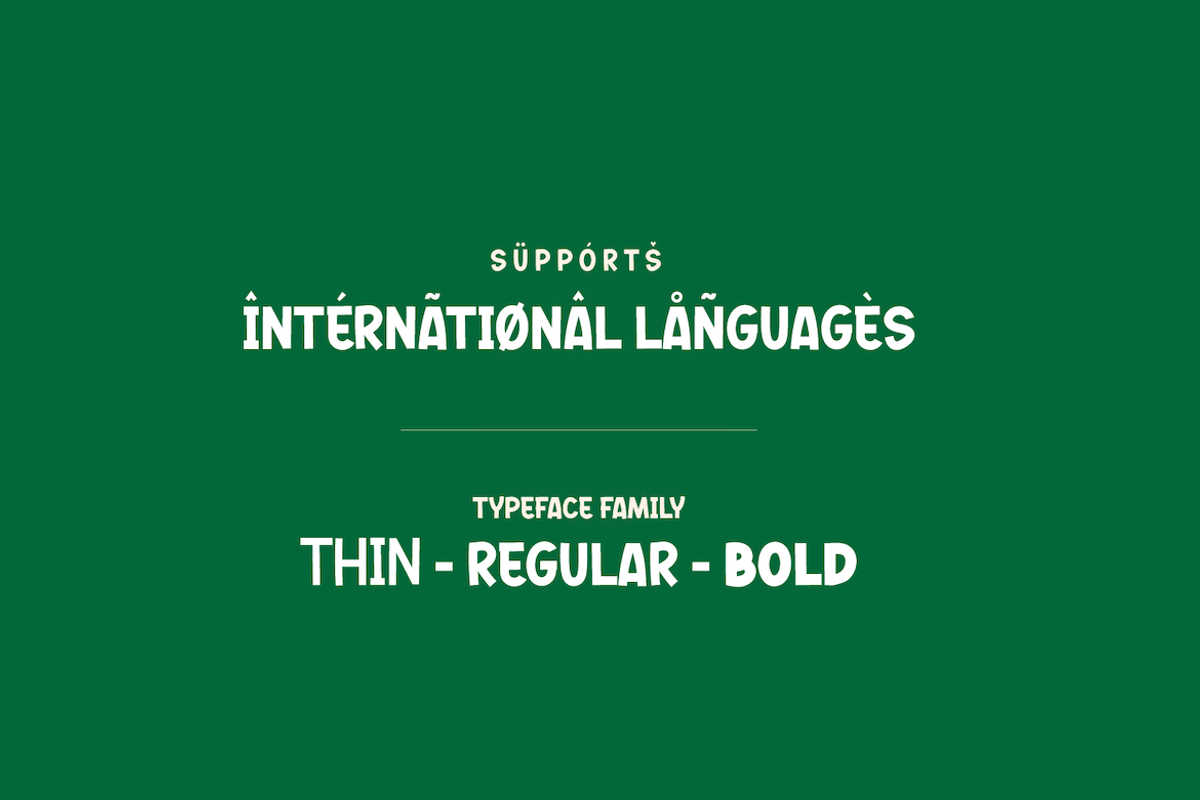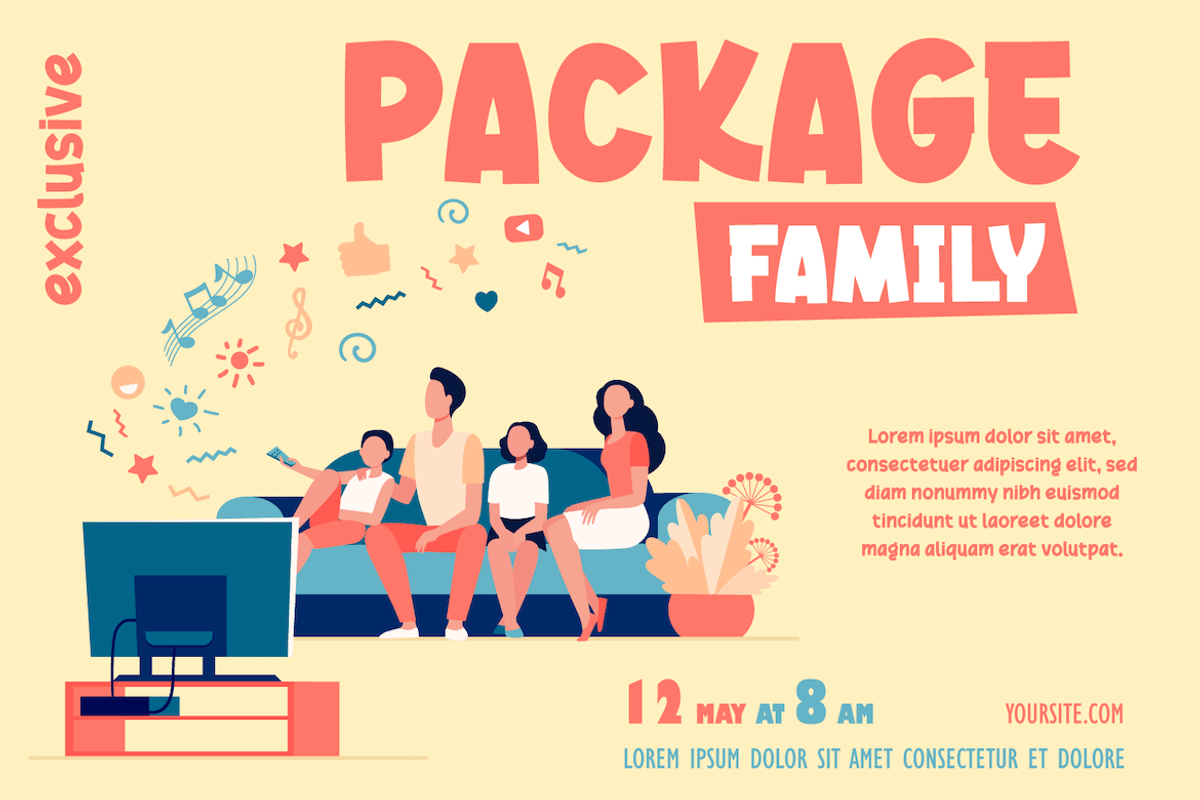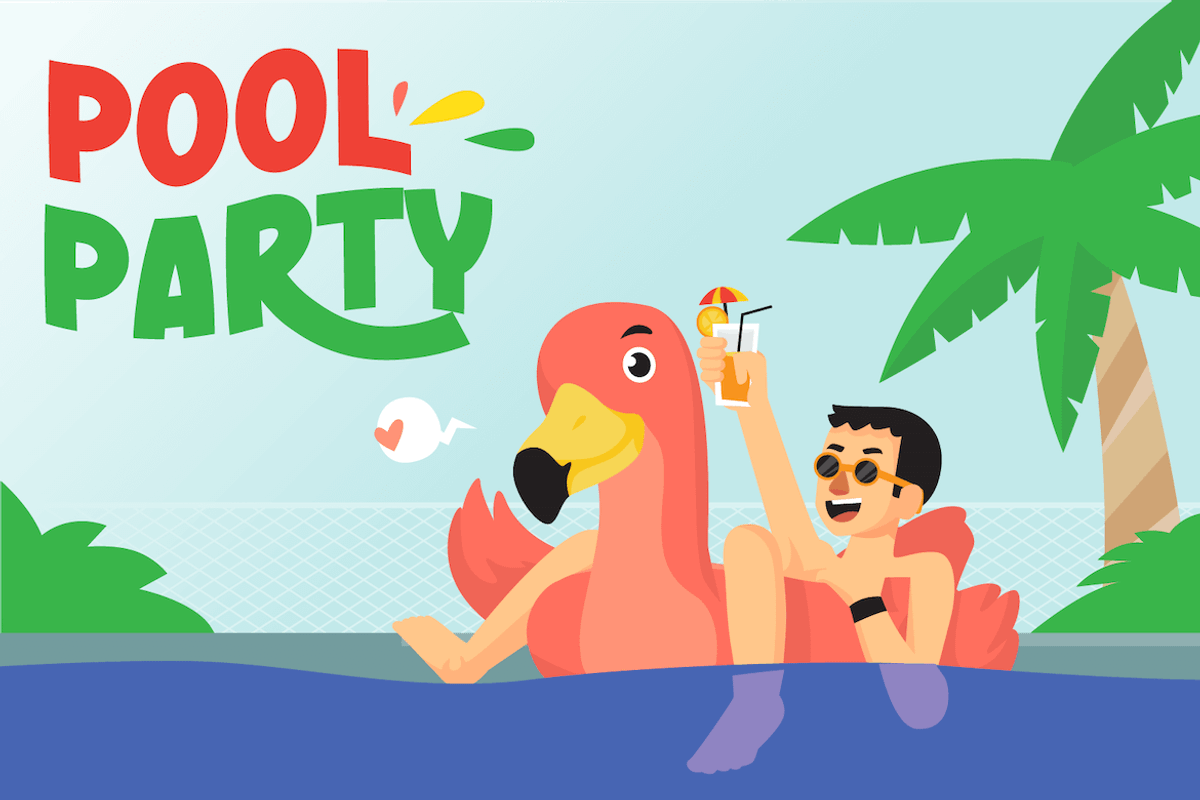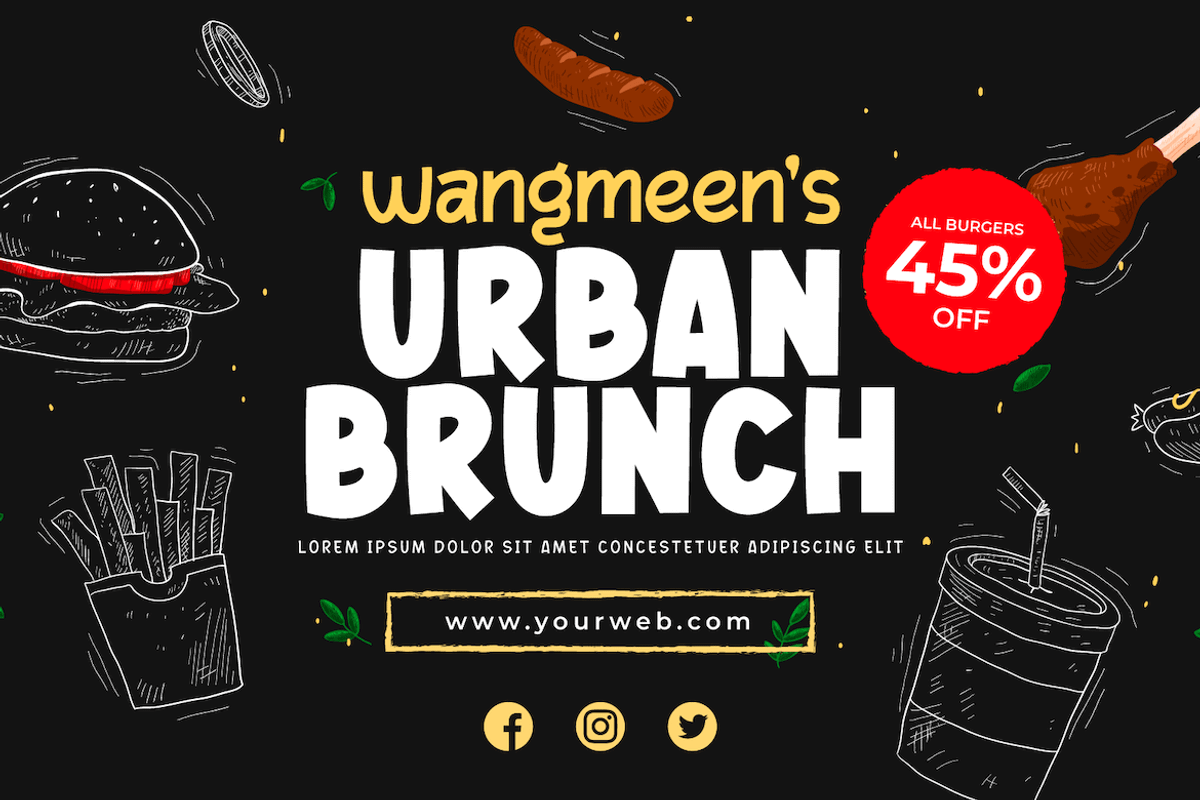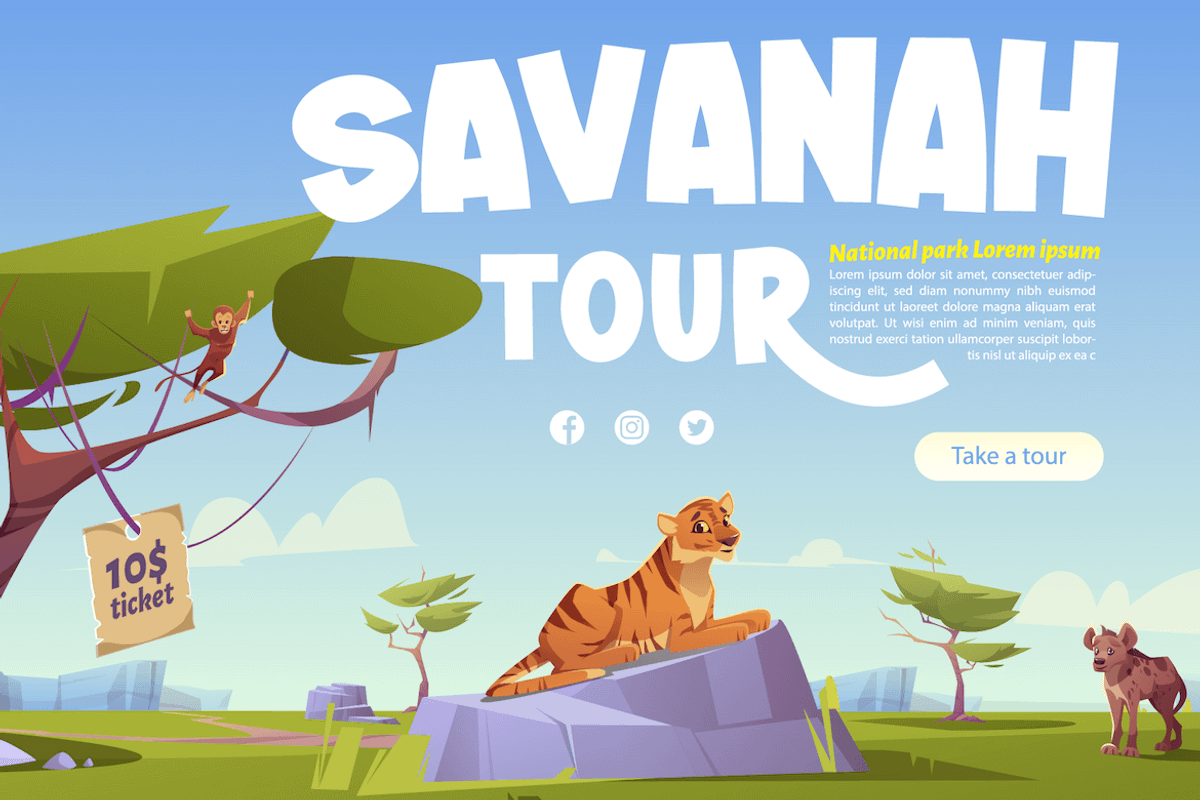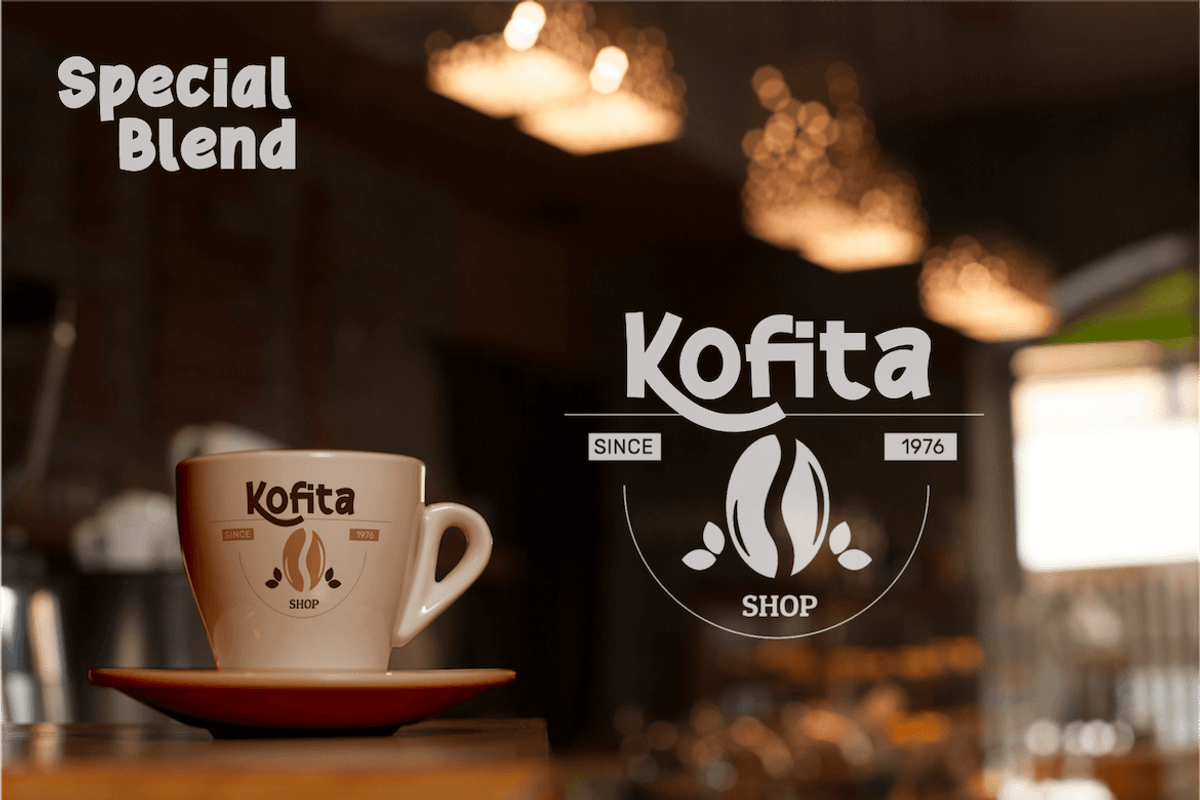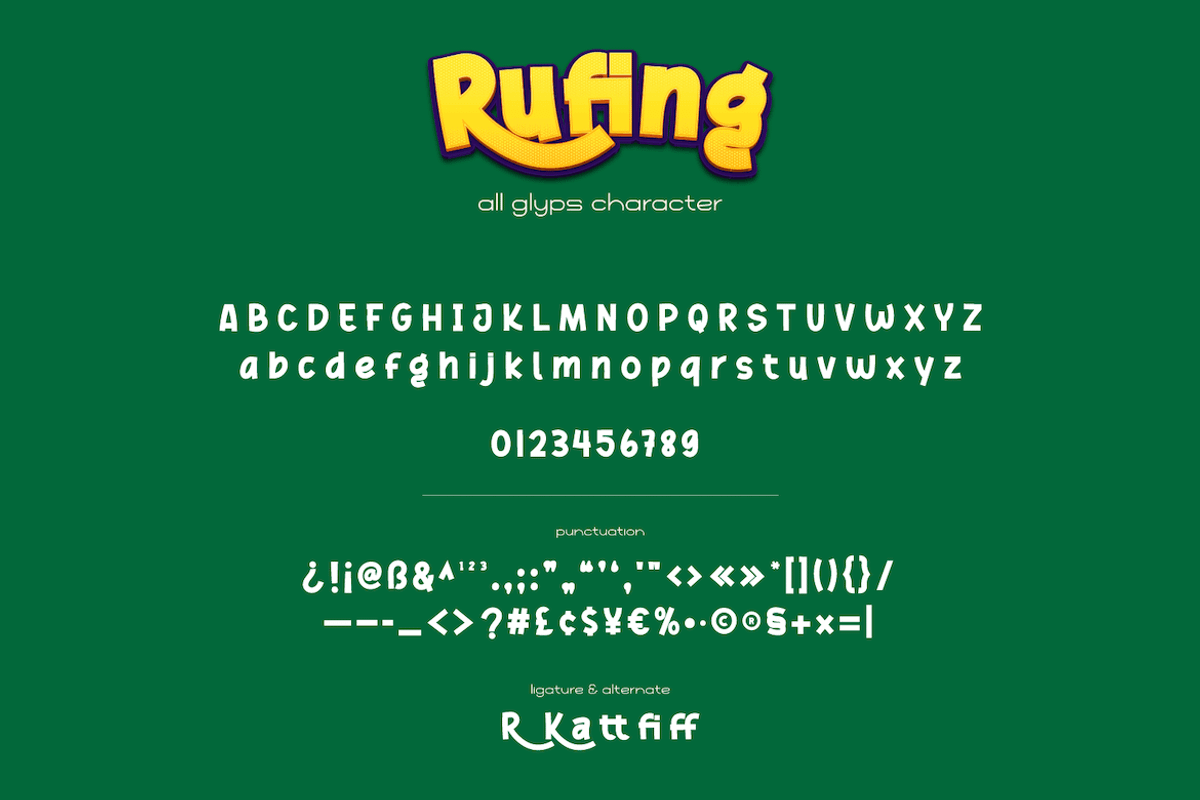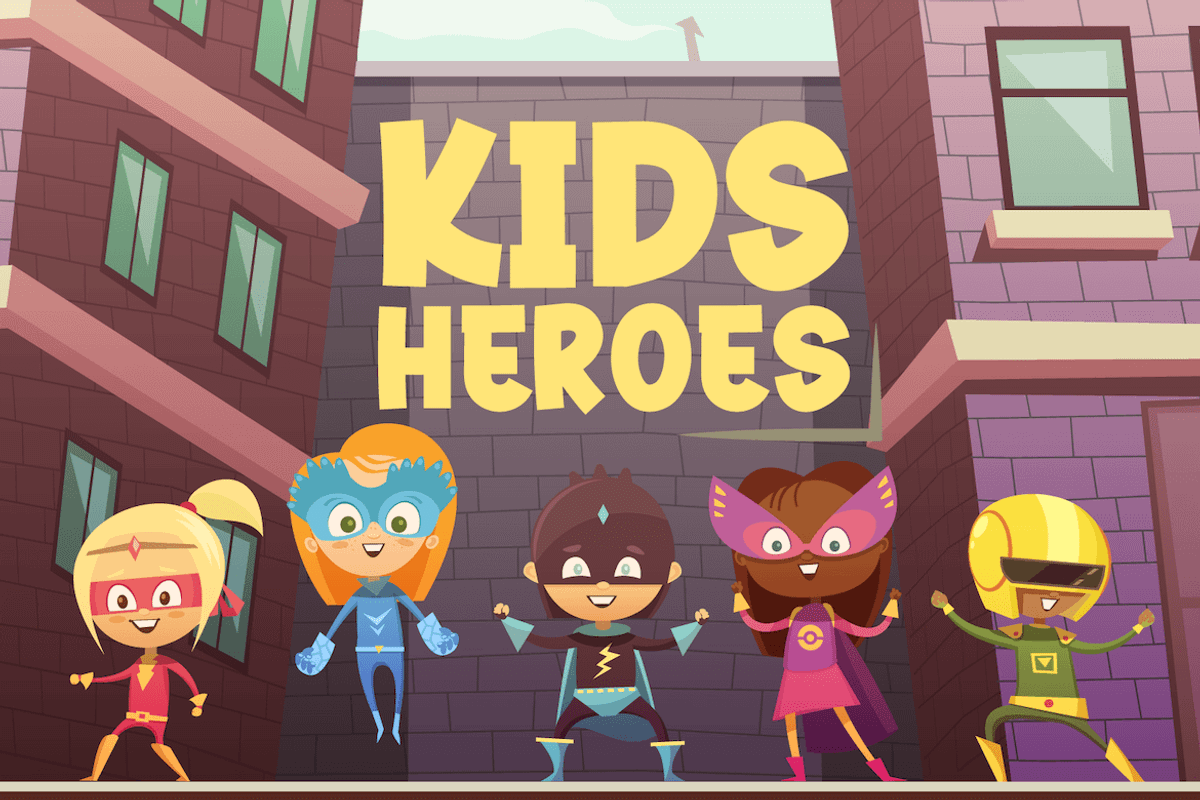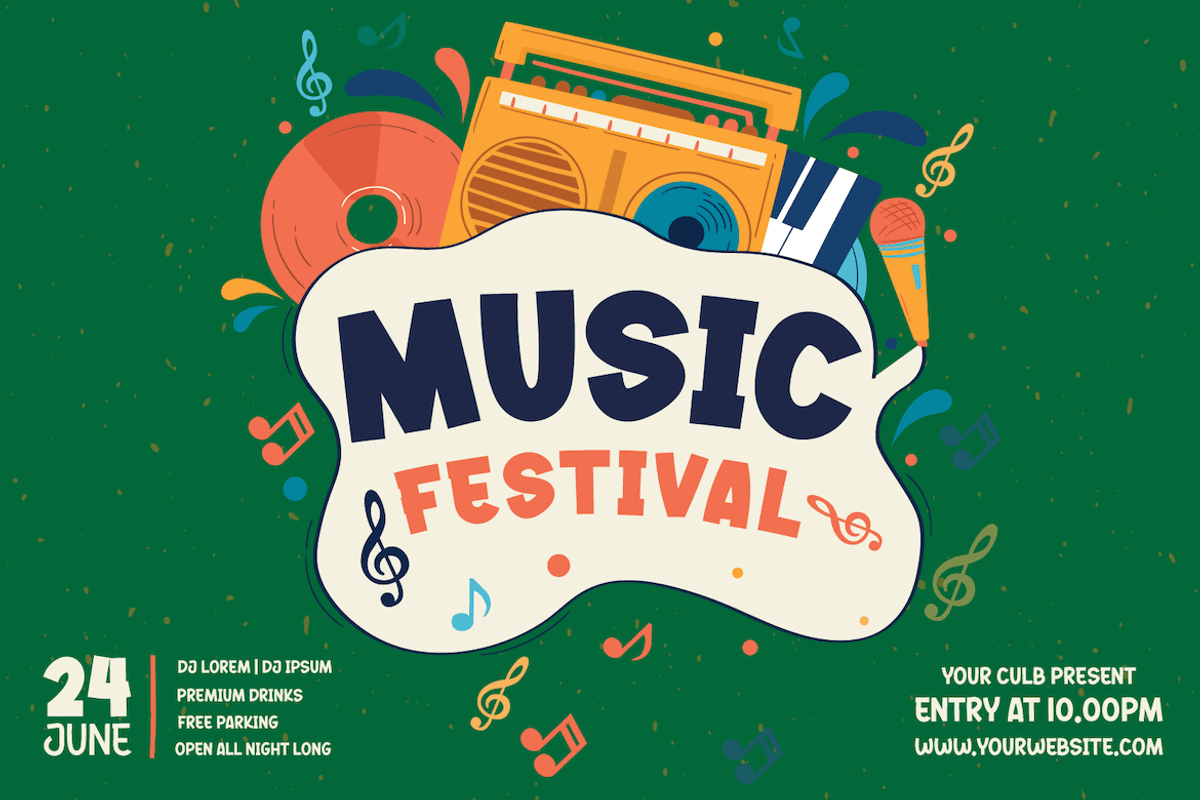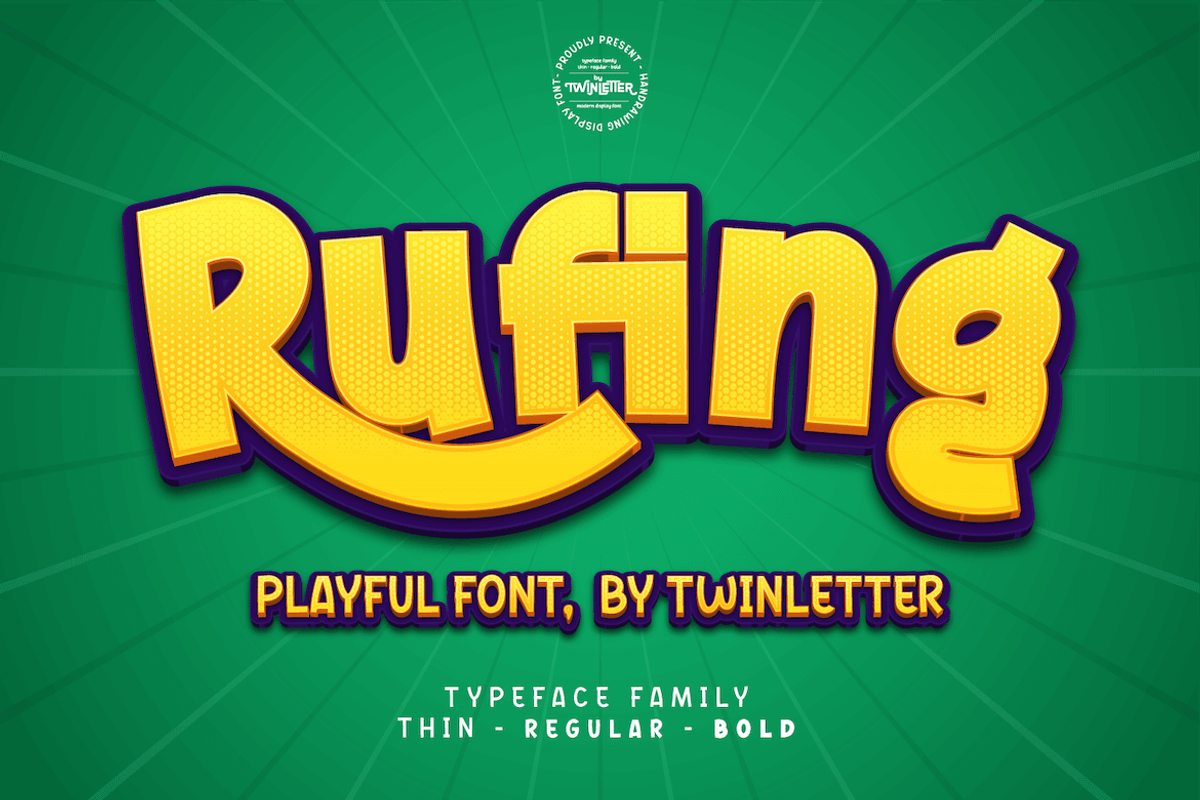
Rufing
Introduce our newest font named Rufing. There are three alternatives in this font, thin, regular, and bold. which makes it easier for you to arrange a proportional and captivating design layout because the character of this font is suitable for use as logos and titles and of course it is also flexible in use in text and sentences.
This handwritten font is perfect for children’s magazines, drink banners, games, posters, beverage, outdoor events, thumbnails, food banners, cheerful writing, film titles, quotes, titles, logos, and various kinds of projects you need, of course, your various design projects will be perfect and extraordinary if you use this font because this font is equipped with a complimentary font family, both for titles and subtitles and sentence text.